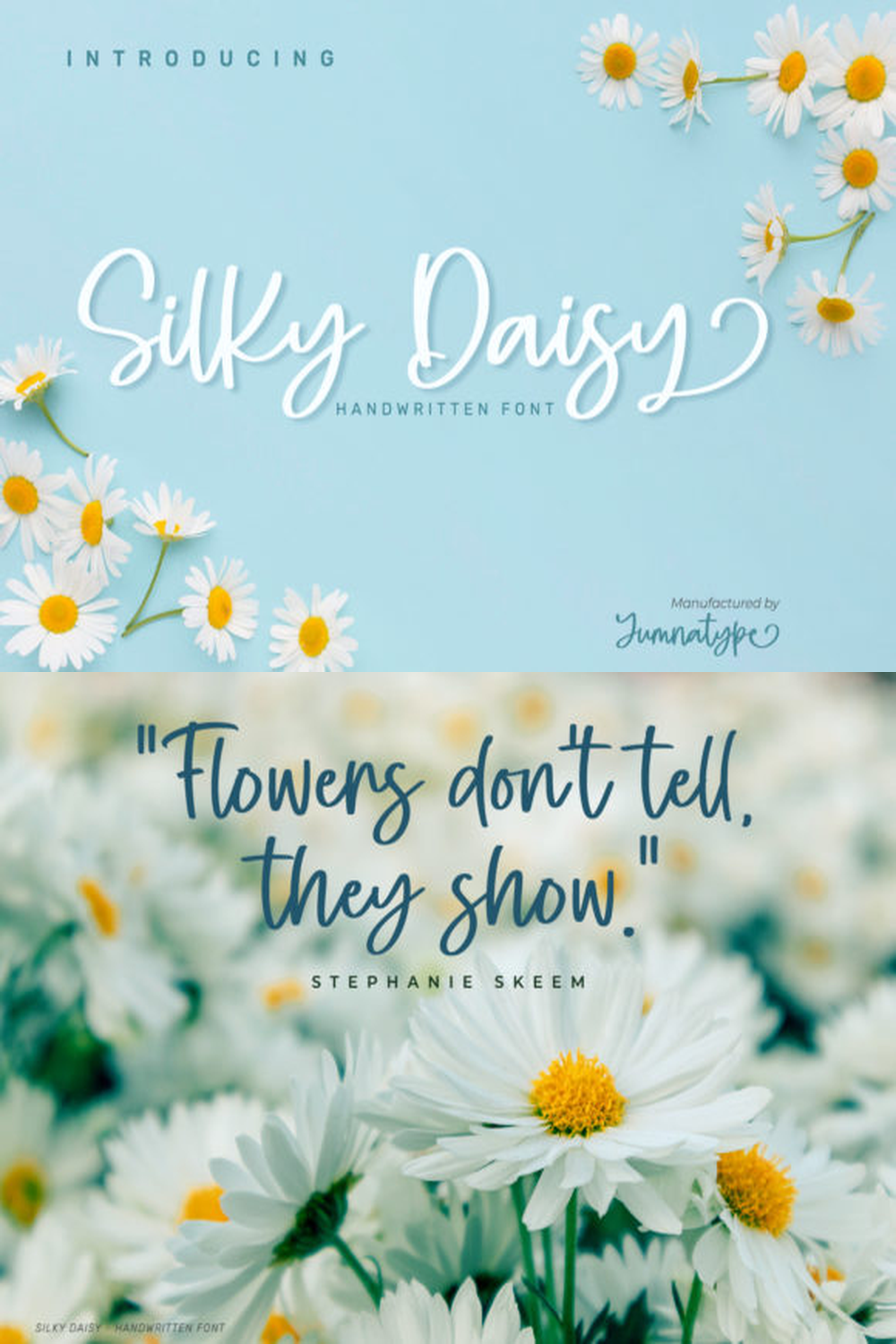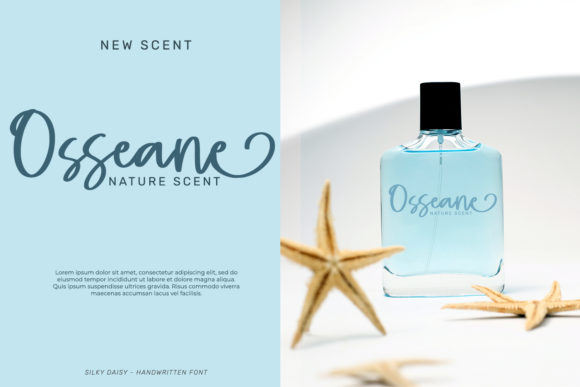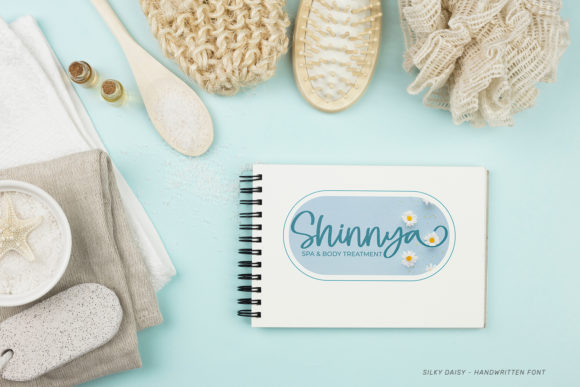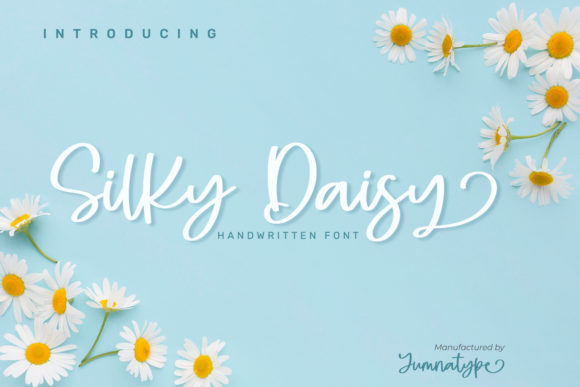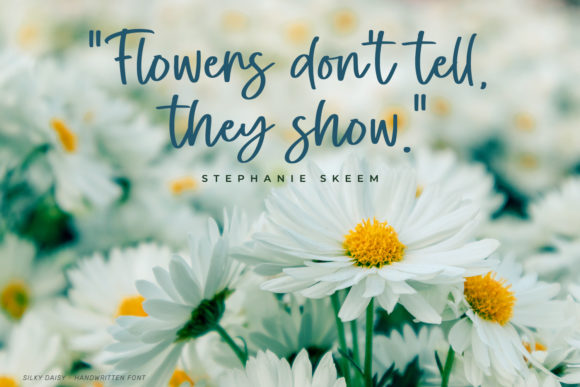
Silky Daisy Font: Cute Handwritten Typography for Cricut & DIY Projects
About the Silky Daisy Font
From logos to headlines, the Silky Daisy Font is the perfect choice for making a lasting impression. Silky Daisy is a delicate and cute handwritten font. Natural and stylish, this font will be incredibly adept for a variety of designs, both formal and informal.
Silky Daisy Font Usage Examples